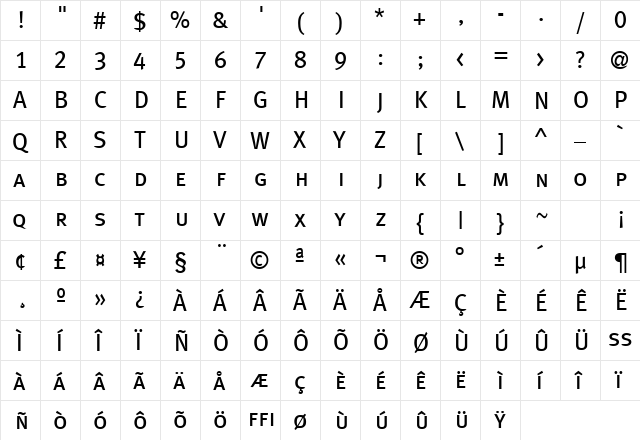
MetaPlusBook-Caps Regular
Design Context for MetaPlusBook-Caps Typeface
MetaPlusBook-Caps is a composed and adaptable typeface that performs quietly and consistently across a wide range of design contexts.